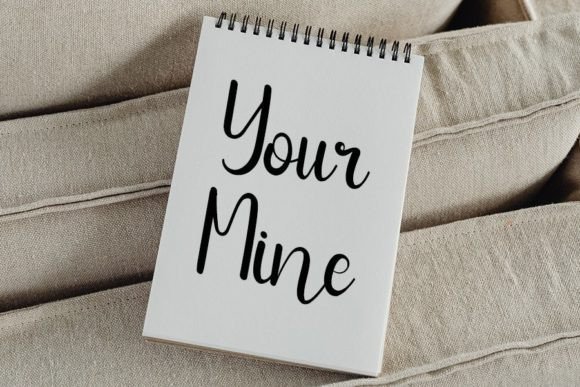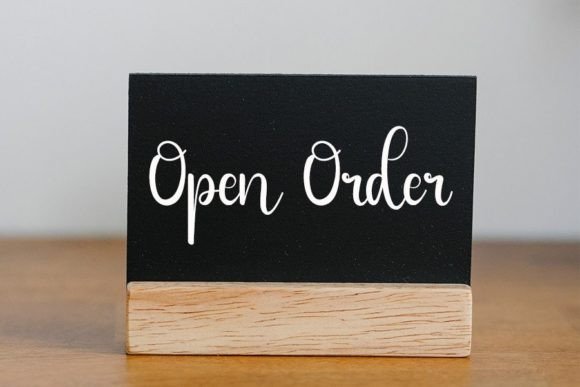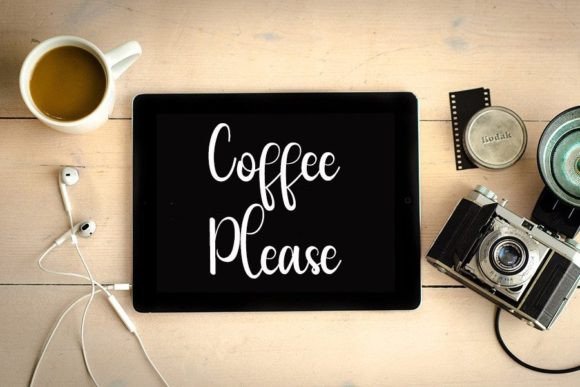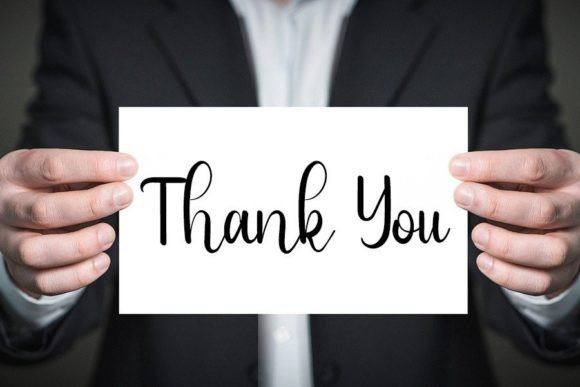
Blind Date Font
About Blind Date Font
Blind Date is a friendly and carefully crafted handwritten font designed to capture hearts and become a true favorite. Balancing a hint of classy calligraphic influences with a contemporary and fresh feel, this typeface seamlessly merges timeless elegance with a modern touch.
The friendly and approachable nature of Blind Date makes it a versatile choice for a variety of design projects. Whether you’re working on personal invitations, greeting cards, or even professional branding materials, this font’s handwritten charm adds a unique and authentic touch.
Maintaining its roots in classy calligraphy, Blind Date brings a sense of sophistication to your designs. Its contemporary and fresh feel makes it adaptable to a range of contexts, allowing it to resonate with diverse audiences across different design needs.
Whether enhancing wedding invitations, creating a brand logo, or infusing a touch of warmth into promotional materials, Blind Date stands out as a font that effortlessly marries traditional influences with a modern aesthetic. Its carefully designed letterforms and friendly vibe make it an ideal choice for those seeking a harmonious balance between classic and contemporary elements.
In conclusion, Blind Date is not just a font; it’s a design companion that adds a friendly and classy touch to your creative endeavors. Embrace its handwritten elegance and let it become a go-to favorite for a variety of projects, bridging the gap between timeless sophistication and fresh, contemporary design.